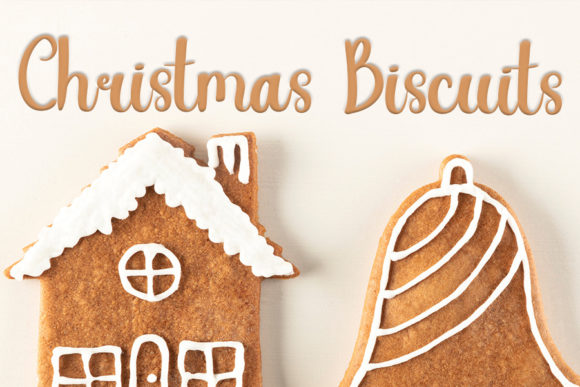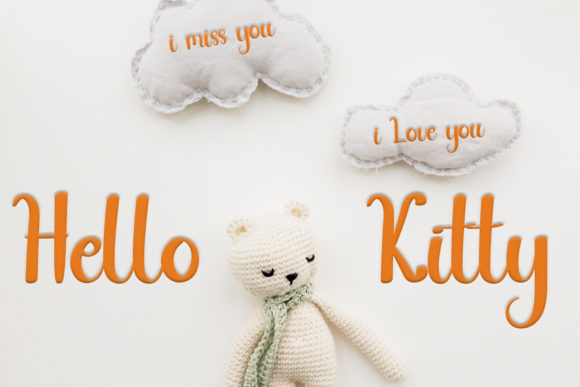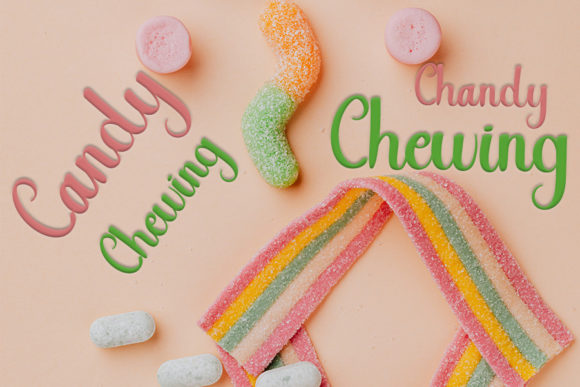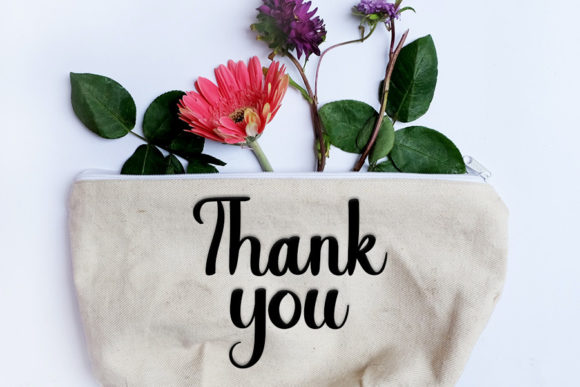
Biscuity Font: Elevate Your Designs with a Touch of Classy Elegance
Are you on the hunt for a font that exudes a perfect blend of casual charm and sophisticated elegance? Look no further than the Biscuity font, a beautifully crafted handwritten typeface that’s sure to capture your heart. In this article, we’ll dive into the world of Biscuity, exploring its unique characteristics, design inspiration, and the endless possibilities it offers for designers and crafters alike.
The Story Behind Biscuity Font
Biscuity is more than just a font – it’s a carefully designed, handcrafted typeface that seamlessly merges classic calligraphic influences with a modern, fresh aesthetic. Its creator’s passion for typography and dedication to detail have resulted in a font that’s both timeless and trendy. Whether you’re working on a branding project, crafting a social media post, or designing a beautiful wedding invitation, Biscuity is the perfect companion to help you bring your vision to life.
What Makes Biscuity Font So Special?
So, what sets Biscuity apart from other fonts out there? Here are just a few reasons why this stunning typeface has captured the hearts of designers and crafters worldwide:
- Classy Calligraphic Influences: Biscuity boasts elegant, flowing strokes that evoke the sophistication of traditional calligraphy. Its refined lines and curves add a touch of luxury to any design.
- Contemporary and Fresh: Despite its classic roots, Biscuity feels remarkably modern and fresh. Its subtle imperfections and organic feel make it perfect for designs that require a human touch.
- Casual and Approachable: Unlike some calligraphic fonts, Biscuity is remarkably legible and easy to read, making it an excellent choice for body text and captions.
- Versatile: Biscuity is an incredibly versatile font that works beautifully in a wide range of design applications, from digital projects to print materials.
Using Biscuity Font in Your Designs
Ready to fall in love with Biscuity and take your designs to new heights? Here are some ideas to get you started:
- Branding and Logos: Use Biscuity to create a stunning logo or brand identity that exudes elegance and sophistication.
- Wedding and Event Design: Add a touch of romance and whimsy to your wedding invitations, save-the-dates, and event branding with Biscuity.
- Social Media and Blogging: Elevate your social media posts and blog content with Biscuity’s beautiful, flowing script.
- Packaging and Product Design: Use Biscuity to create eye-catching packaging and product labels that stand out on store shelves.
Tips for Getting the Most Out of Biscuity Font
To truly make Biscuity shine in your designs, keep the following tips in mind:
- Experiment with Font Sizes: Biscuity looks stunning in a range of font sizes, from large headings to smaller body text.
- Play with Color: Don’t be afraid to experiment with different colors and textures to add depth and interest to your designs.
- Mix and Match: Combine Biscuity with other fonts to create a unique, visually appealing typography scheme.
In conclusion, Biscuity font is a true gem in the world of typography. Its perfect blend of classic elegance and modern charm makes it an excellent choice for designers and crafters looking to elevate their projects. Whether you’re working on a branding campaign, wedding design, or social media content, Biscuity is sure to bring a touch of sophistication and whimsy to your creations. So why wait? Fall in love with Biscuity today and take your designs to new heights!